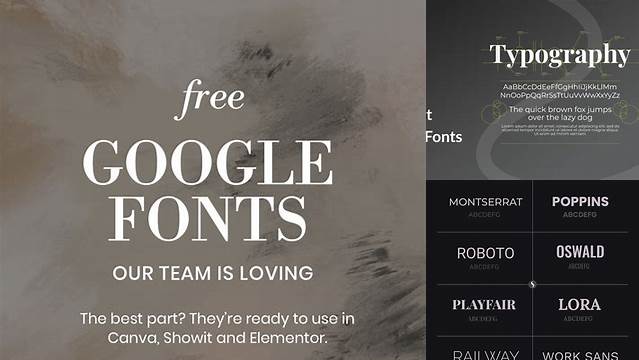
Top Modern Fonts On Google Fonts: A 2024 Guide
Choosing the right font can make or break your design. With Google Fonts, you have access to a massive library of typefaces, but finding the best modern fonts can feel like searching for a needle in a haystack. Don't worry, guys! This guide will walk you through some top picks and help you understand what makes a font truly modern and effective. We'll dive into various categories and use cases, ensuring you find the perfect font for your next project. Whether you’re designing a website, creating marketing materials, or just looking to freshen up your personal projects, this article has got you covered. Let’s jump in and explore the world of modern typography on Google Fonts!
H2: What Makes a Font "Modern"?
What exactly do we mean by a modern font? It's more than just a trendy typeface. Modern fonts often feature clean lines, geometric shapes, and a minimalist aesthetic. They prioritize readability and clarity, making them ideal for both body text and headlines. Think of fonts that convey a sense of sophistication, innovation, and forward-thinking design. This often translates to sans-serif fonts, but there are also modern serif fonts that break the traditional mold with unique character and style. When you're evaluating a font, consider its overall visual impact and how well it aligns with the message you're trying to communicate. Does it feel current and fresh? Does it lend a sense of professionalism or creativity? These are the questions to ask when defining a font as "modern." We’ll look at several examples and dissect their unique characteristics to give you a better understanding of what to look for. Ultimately, the goal is to choose a font that not only looks good but also enhances the user experience and reinforces your brand identity.
H2: Best Sans-Serif Modern Fonts
Sans-serif fonts are the workhorses of modern design. Their clean, unadorned letterforms lend a sense of simplicity and clarity, making them incredibly versatile for various applications. On Google Fonts, you'll find a plethora of sans-serif options, but some stand out for their unique character and readability. Think about fonts like Montserrat, Open Sans, and Lato. These are classic choices for a reason – they’re highly legible and work well across different screen sizes and mediums. However, don't be afraid to explore less common options as well. Fonts like Poppins and Roboto offer a slightly more contemporary feel while maintaining excellent readability. When choosing a sans-serif font, consider the weight and style variations available. A font family with a wide range of weights (from light to bold) gives you more flexibility in your design. Also, pay attention to the letter spacing and kerning – these subtle details can significantly impact the overall look and feel of your text. We'll highlight some specific examples and discuss their individual strengths in the following sections.
H2: Top Modern Serif Fonts
While sans-serif fonts often dominate the modern design landscape, serif fonts can also bring a touch of sophistication and elegance to your projects. The key is to choose a serif font that feels contemporary rather than stuffy or old-fashioned. Google Fonts offers some fantastic modern serif options that strike this balance beautifully. Think about fonts like Playfair Display, a high-contrast serif that exudes luxury and style, or Arvo, a geometric serif with a strong, contemporary presence. Libre Baskerville is another excellent choice, offering a classic serif structure with a modern twist. When using serif fonts in modern designs, consider pairing them with a clean sans-serif for contrast. This can create a visually appealing hierarchy and improve readability. Pay attention to the details, such as the serifs themselves – are they bracketed or unbracketed? Slab serifs can feel bolder and more modern, while traditional bracketed serifs may convey a more classic aesthetic. Ultimately, the best modern serif font is one that enhances your design without feeling dated.
H2: Modern Fonts for Headlines
Headlines need to grab attention and make a statement. That's why choosing the right font for your headlines is crucial. Modern headlines often benefit from fonts with strong personalities – typefaces that are bold, unique, and memorable. On Google Fonts, you'll find a range of options that fit this bill. For a striking, contemporary headline, consider using Montserrat or Raleway. These sans-serif fonts have a clean, geometric structure that commands attention. If you're looking for something a bit more unconventional, explore fonts like Bebas Neue or Oswald, both of which offer a tall, condensed style that's perfect for headlines. Remember to consider the overall tone and style of your design when choosing a headline font. A bold, impactful font might be perfect for a modern tech company, but it might not be the best choice for a more delicate or traditional brand. Experiment with different font pairings and pay attention to how the headline font interacts with the body text. The goal is to create a visual hierarchy that guides the reader's eye and makes your message clear and compelling.
H2: Best Modern Fonts for Body Text
Readability is king when it comes to body text. You want a font that's easy on the eyes, even when reading long paragraphs. That's why it's essential to choose a modern font that prioritizes clarity and legibility. Google Fonts has numerous options that excel in this area. Open Sans is a perennial favorite, known for its clean lines and excellent readability across different screen sizes. Lato is another solid choice, offering a slightly warmer and more humanist feel. For a more contemporary option, consider Roboto or Noto Sans, both of which are designed for optimal readability on digital devices. When selecting a body text font, pay attention to the x-height (the height of the lowercase letters) and the letter spacing. A font with a generous x-height and ample spacing will be easier to read, especially at smaller sizes. Also, consider the overall tone and style of your design. A modern body text font should complement the headline font and contribute to the overall visual harmony of your project. We’ll break down specific fonts and their ideal use cases in the following sections.
H2: Modern Fonts for Websites
Your website's typography plays a significant role in the user experience. Choosing the right fonts can make your site more engaging, readable, and professional-looking. For modern websites, it’s important to select fonts that are optimized for screen display. Google Fonts offers a wide array of options that work beautifully online. Sans-serif fonts like Roboto, Open Sans, and Montserrat are popular choices for their clarity and legibility on various devices. For a more unique touch, consider using Poppins or Lato, which offer a contemporary feel without sacrificing readability. When selecting fonts for your website, think about the overall design and brand identity. The fonts should align with your brand's personality and contribute to a cohesive visual experience. Also, pay attention to font pairings. Combining a bold headline font with a clean body text font can create a visually appealing hierarchy. Remember to test your fonts on different browsers and devices to ensure they render correctly. We'll explore specific font combinations and design tips for websites in the upcoming sections.
H2: Modern Fonts for Mobile Apps
Designing for mobile apps requires careful consideration of typography. Screen real estate is limited, so you need fonts that are highly legible at small sizes. Modern mobile apps often benefit from clean, minimalist fonts that don't clutter the interface. Google Fonts offers several excellent options for mobile app design. Roboto is a top pick for its clarity and versatility. It's designed to work well on Android devices and offers a wide range of weights and styles. Noto Sans is another great choice, known for its multilingual support and excellent readability. For a more contemporary feel, consider using Open Sans or Lato. When choosing fonts for your mobile app, think about the overall user experience. The fonts should be easy to read, even on small screens. Pay attention to the contrast between the text and the background, and make sure the font size is appropriate for mobile viewing. Also, consider the overall tone and style of your app. The fonts should align with your app's branding and contribute to a cohesive visual identity. We'll delve into best practices for mobile typography and showcase specific font examples in the following sections.
H2: Pairing Modern Fonts Effectively
Font pairing is an art and a science. Combining different fonts effectively can create visual interest and hierarchy in your designs, while a poor pairing can lead to a confusing and disjointed look. When pairing modern fonts, the goal is to create contrast and harmony. A common approach is to pair a bold headline font with a clean, readable body text font. For example, you might combine Montserrat (for headlines) with Open Sans (for body text). Another effective strategy is to pair a sans-serif font with a serif font. This can create a classic yet contemporary feel. Consider pairing Playfair Display (a sophisticated serif) with Montserrat (a clean sans-serif). When experimenting with font pairings, pay attention to the weights and styles of the fonts. Using different weights can help create visual hierarchy and guide the reader's eye. Also, consider the overall tone and style of your design. The font pairings should align with your brand's personality and the message you're trying to communicate. We'll break down specific font pairing examples and offer practical tips for creating harmonious combinations in the following sections.
H2: Modern Font Trends in 2024
Typography trends are constantly evolving, and staying up-to-date can help you create designs that feel fresh and current. In 2024, we're seeing a continued emphasis on clean, minimalist fonts, but there's also a growing interest in more expressive and characterful typefaces. Modern font trends include the use of variable fonts, which offer a wide range of weights and styles within a single font file. This allows for greater flexibility and control over your typography. We're also seeing a resurgence of retro and vintage-inspired fonts, often with a modern twist. These fonts can add a touch of nostalgia and personality to your designs. Bold and geometric sans-serif fonts continue to be popular for headlines, while clean and legible sans-serifs remain the go-to choice for body text. Experimenting with font pairings and creating visual contrast is also a key trend. We'll explore specific font trends and provide examples of how to incorporate them into your designs in the following sections. Let’s keep things fresh and modern, guys!
H3: The Future of Modern Fonts
The world of typography is constantly evolving, and the future of modern fonts is looking bright. We're seeing advancements in variable font technology, which allow for greater flexibility and customization. Artificial intelligence is also playing a role in font design, with AI-powered tools helping designers create new and innovative typefaces. The trend towards more expressive and characterful fonts is likely to continue, as designers seek to create unique and memorable brand identities. We can also expect to see more fonts designed specifically for the web and mobile devices, with a focus on readability and performance. The intersection of technology and design is creating exciting possibilities for the future of typography. We'll explore the latest trends and innovations in font design and offer insights into what the future may hold in the sections that follow.